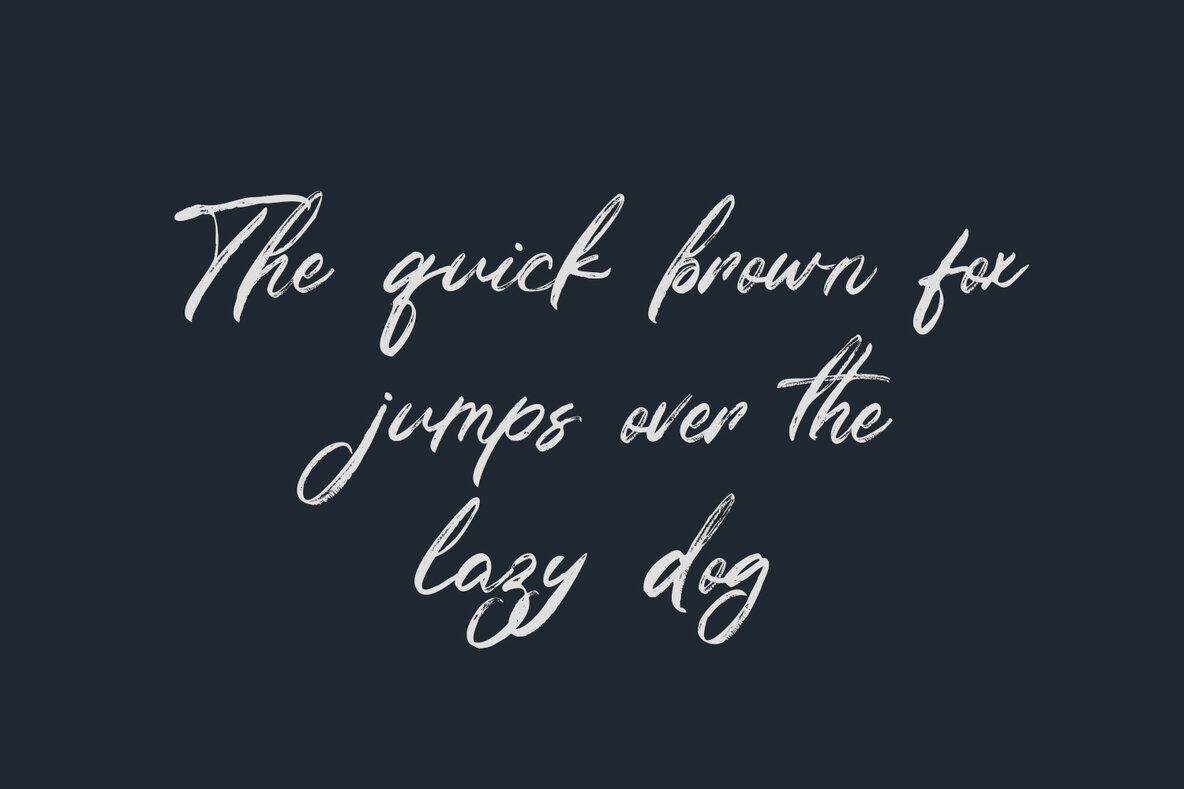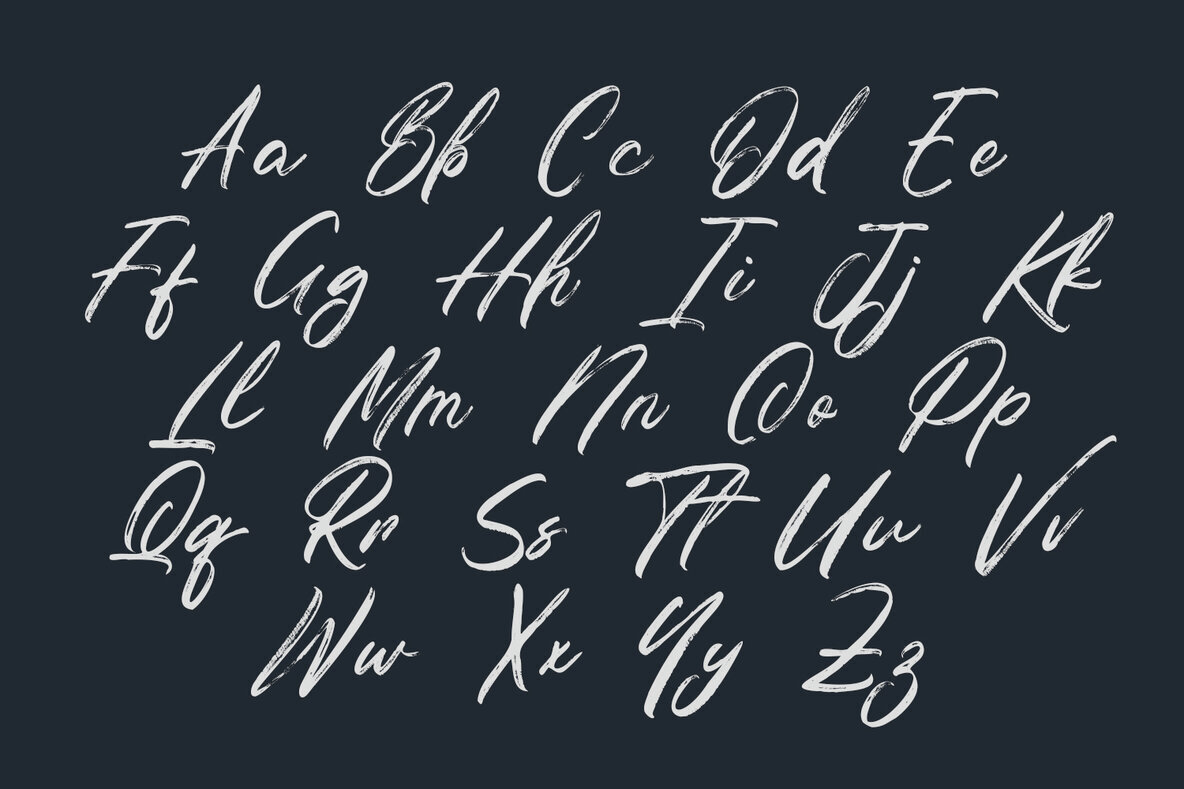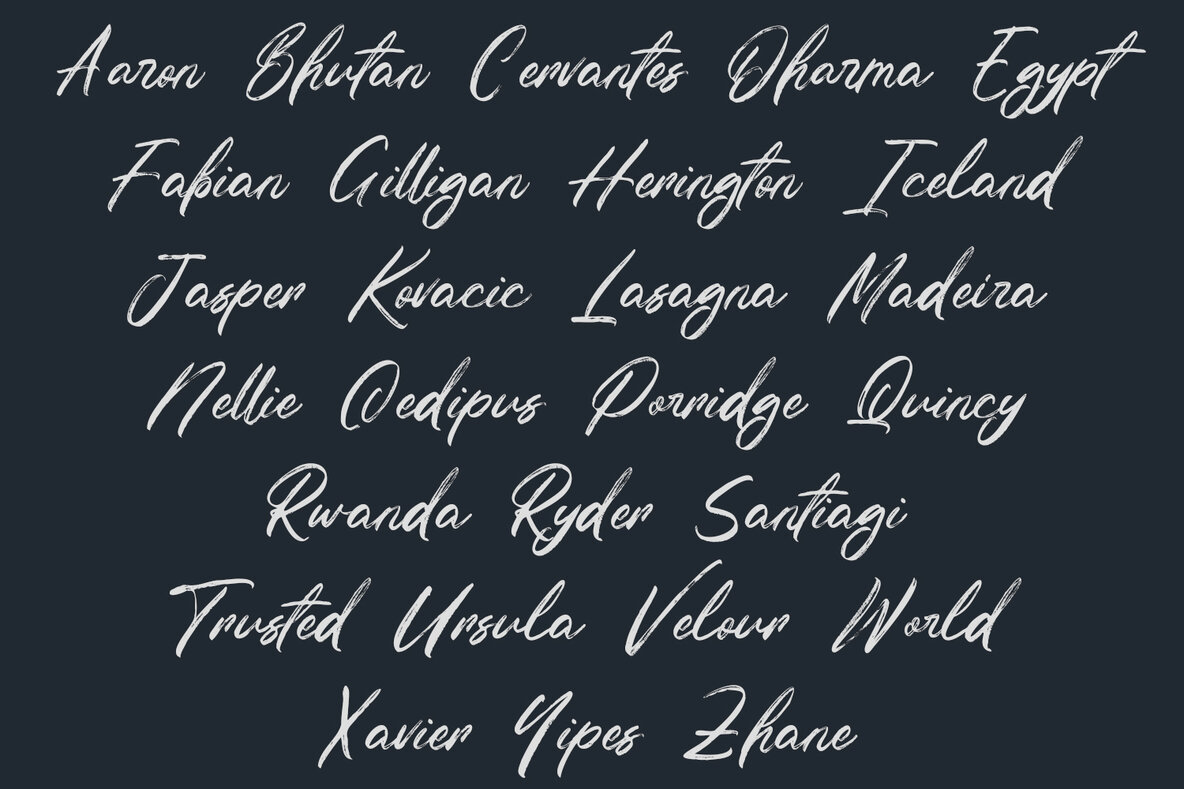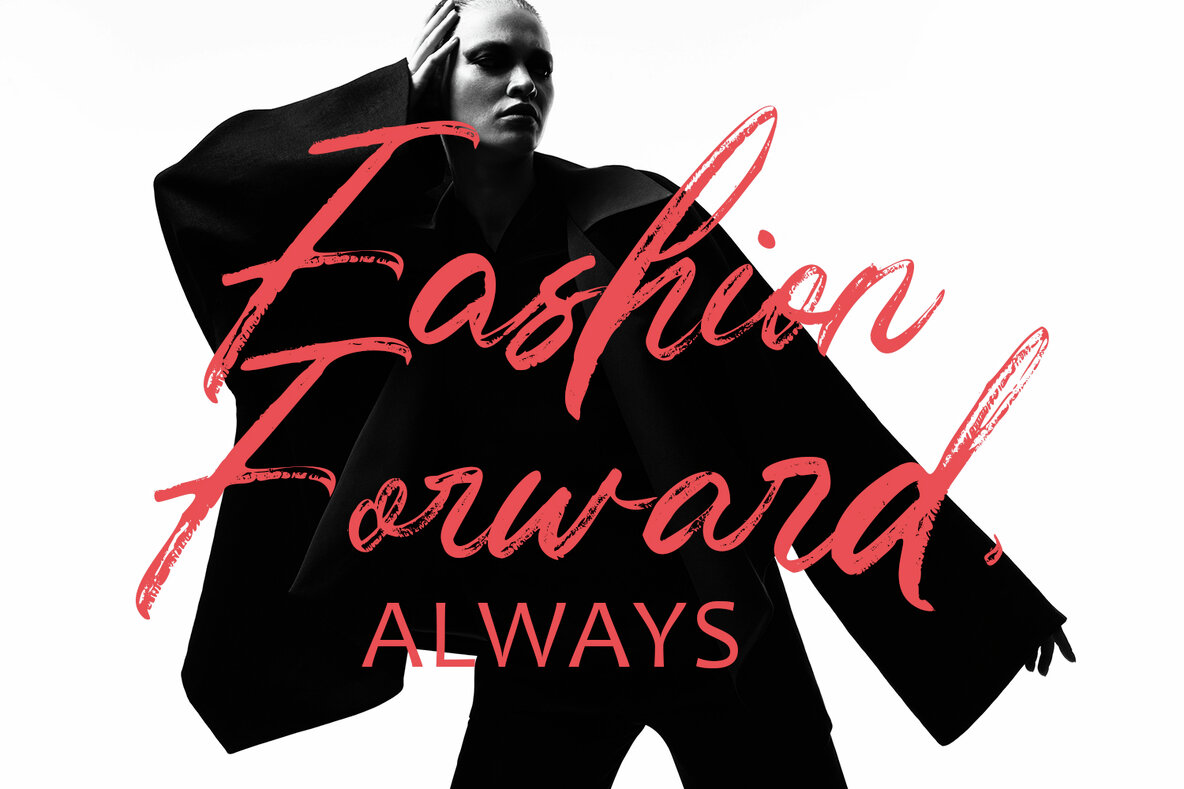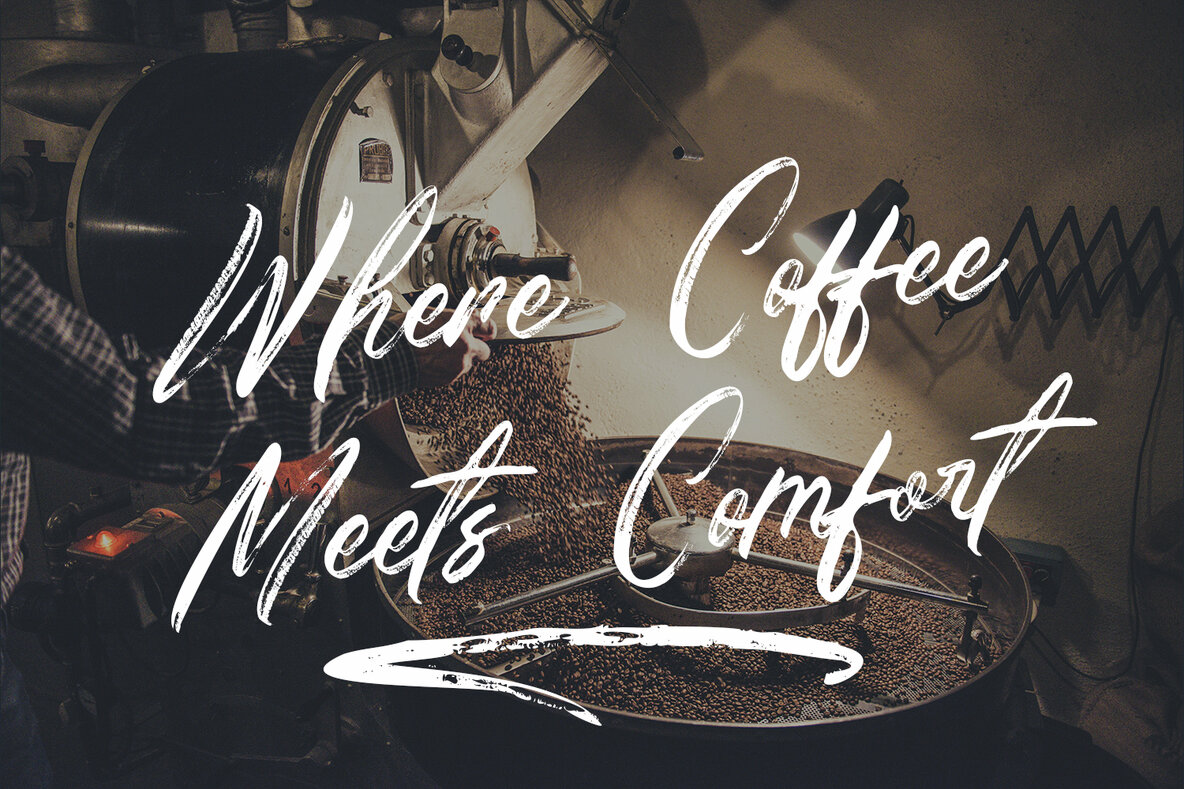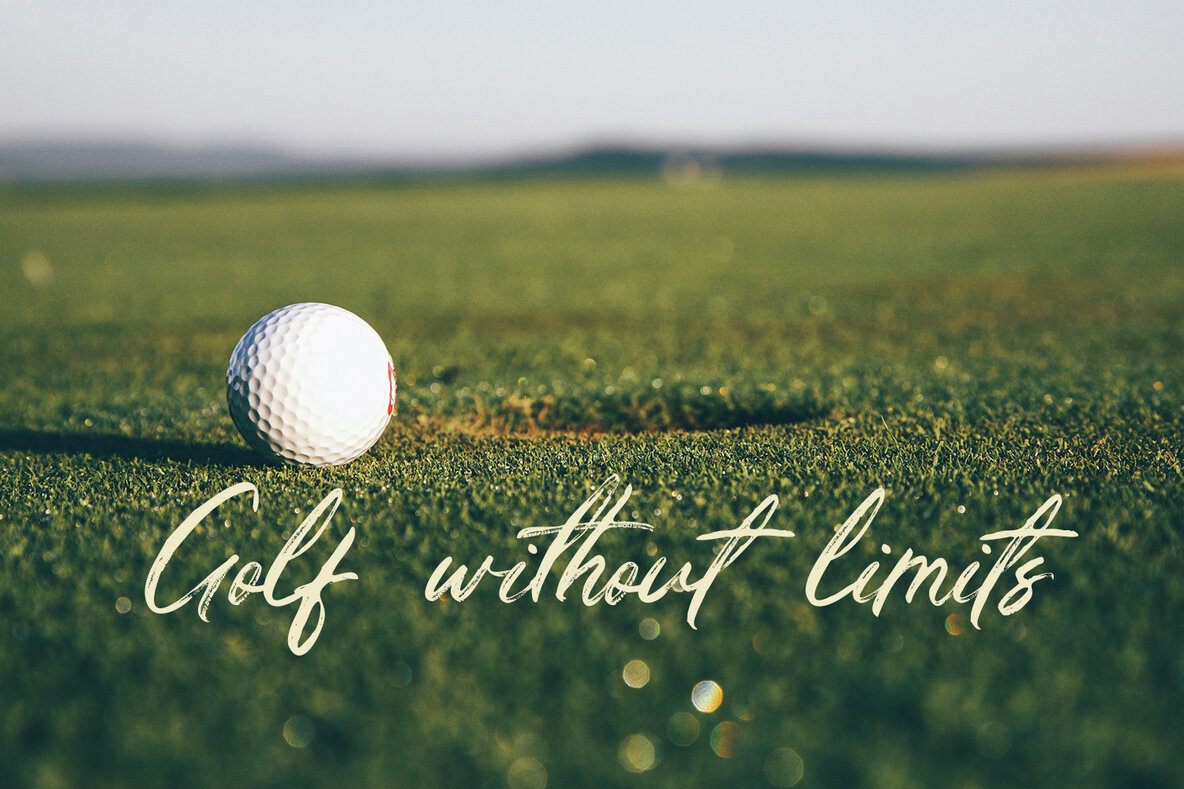
Disabled Font
"Disabled" is a textured handwritten font that marries the authenticity of handcrafted letters with a distinct texture, infusing depth and character into your designs. Each character captures the unique imperfections and irregularities of hand-drawn fonts, adding a personal touch to the typography and creating a warm, inviting feel. The textured appearance mimics ink bleed or rough brush strokes, providing a rustic, artisanal charm.
Despite its handcrafted look, "Disabled" is versatile enough for various design applications. Whether used in branding materials, packaging, posters, or social media graphics, it brings a memorable and unique element to any project. The expressive typography of "Disabled" helps designers convey personality and emotion, making it ideal for projects that require an authentic and sincere touch. Each character is meticulously crafted to ensure clarity and readability, maintaining its handwritten charm while being easily legible. Additionally, customization options like alternate characters and ligatures may be available, allowing for further personalization to suit specific design needs.